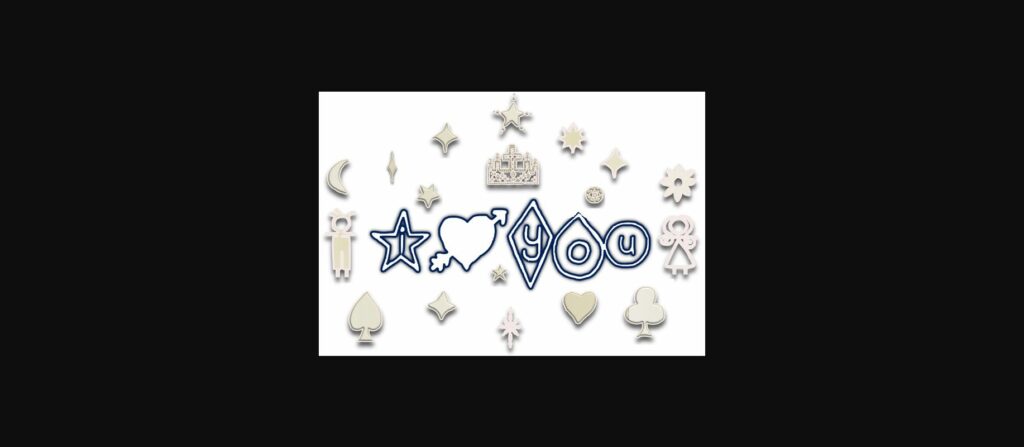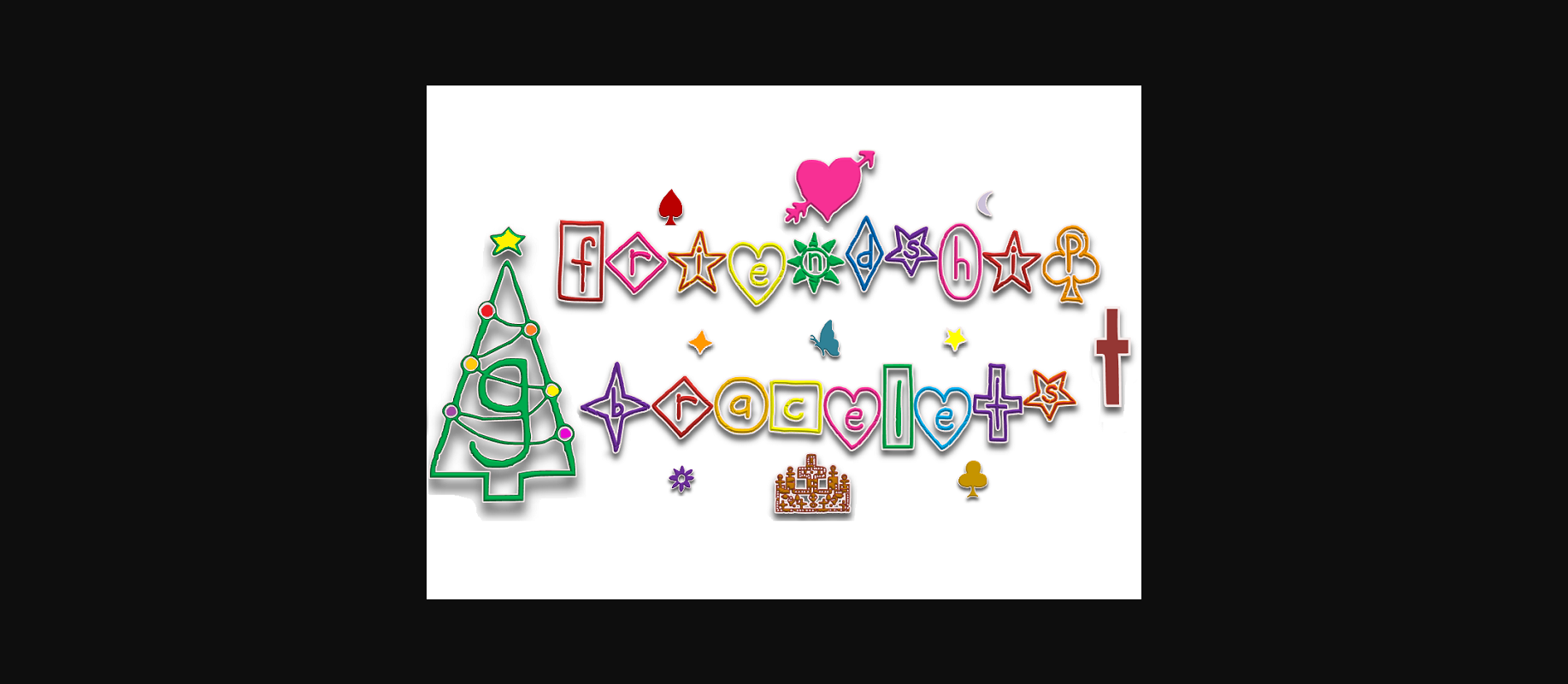
About Friendship Bracelets Font
Friendship Bracelets is a beautiful and whimsical handwritten decorative font. Use it to add a lovely feel to any design idea.